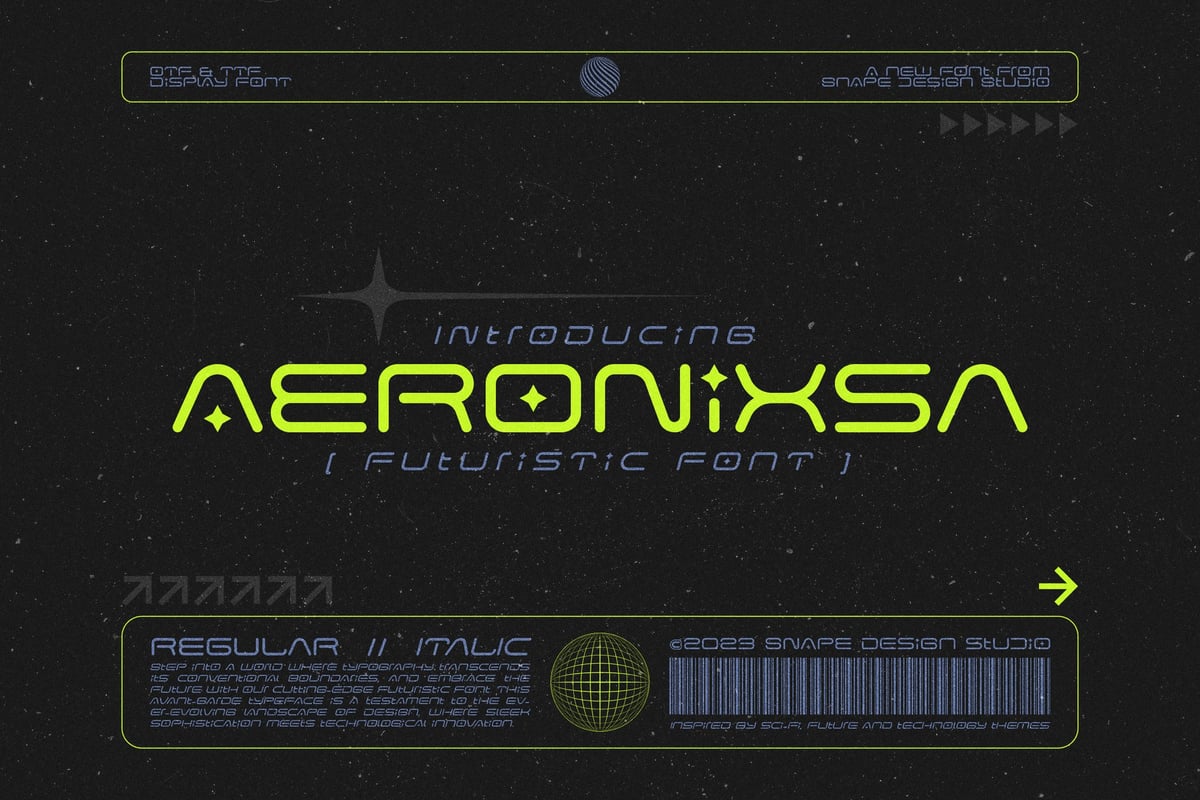
Aeronixsa - Futuristic Font
Transform your designs with cutting-edge futuristic typography that seamlessly blends technology and artistry. This innovative font collection redefines the future of design with sleek, dynamic, and visually striking characters. Perfect for sci-fi themes, tech branding, or any project demanding a modern edge, Aeronixsa empowers creativity through versatility and user-friendly customization options. Elevate your designs to the next level and embrace the future of typography with this comprehensiv...